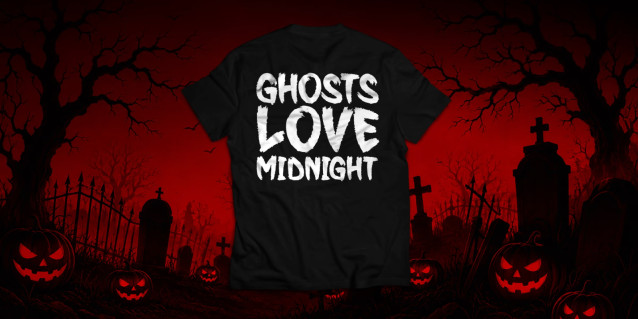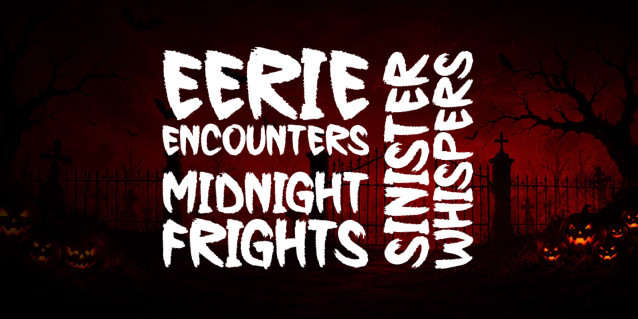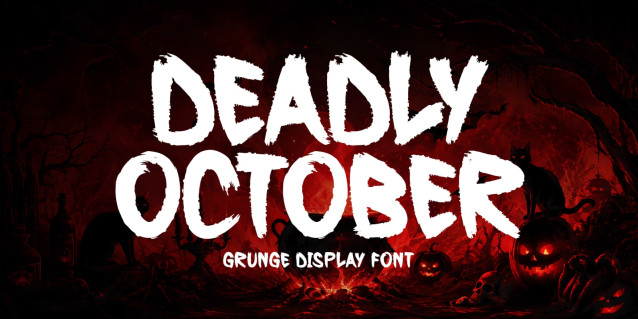
Deadly October Font
Deadly October is a bold grunge Halloween font packed with a dark, eerie, and distressed personality. Its rough textures and striking letterforms create a creepy, rebellious atmosphere that instantly grabs attention. Perfect for Halloween posters, horror-themed designs, spooky logos, T-shirt graphics, album covers, social media artwork, invitations, and seasonal branding.
Whether you’re creating something terrifying or mysteriously wicked, Deadly October adds an authentic haunted feel and powerful visual impact to every design.